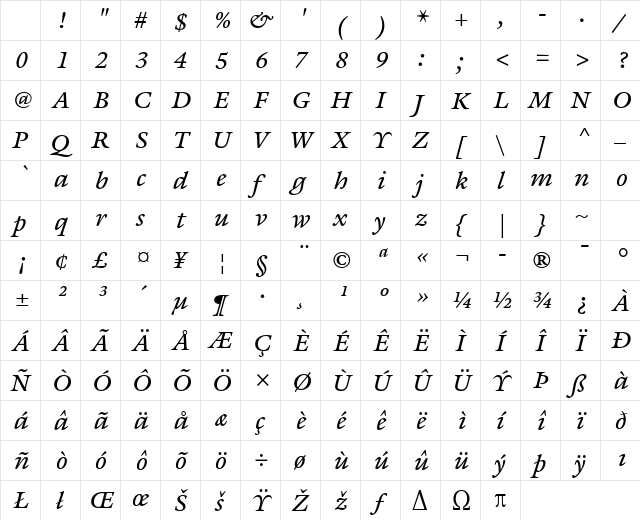
Galliard eText ITC is a composed and adaptable typeface that performs quietly and consistently across a wide range of design contexts. The slanted form adds forward momentum and visual energy.
Pro Tip: Use Galliard eText ITC for emphasis, pull quotes, and subheadings where its slanted energy can add rhythm to the layout.